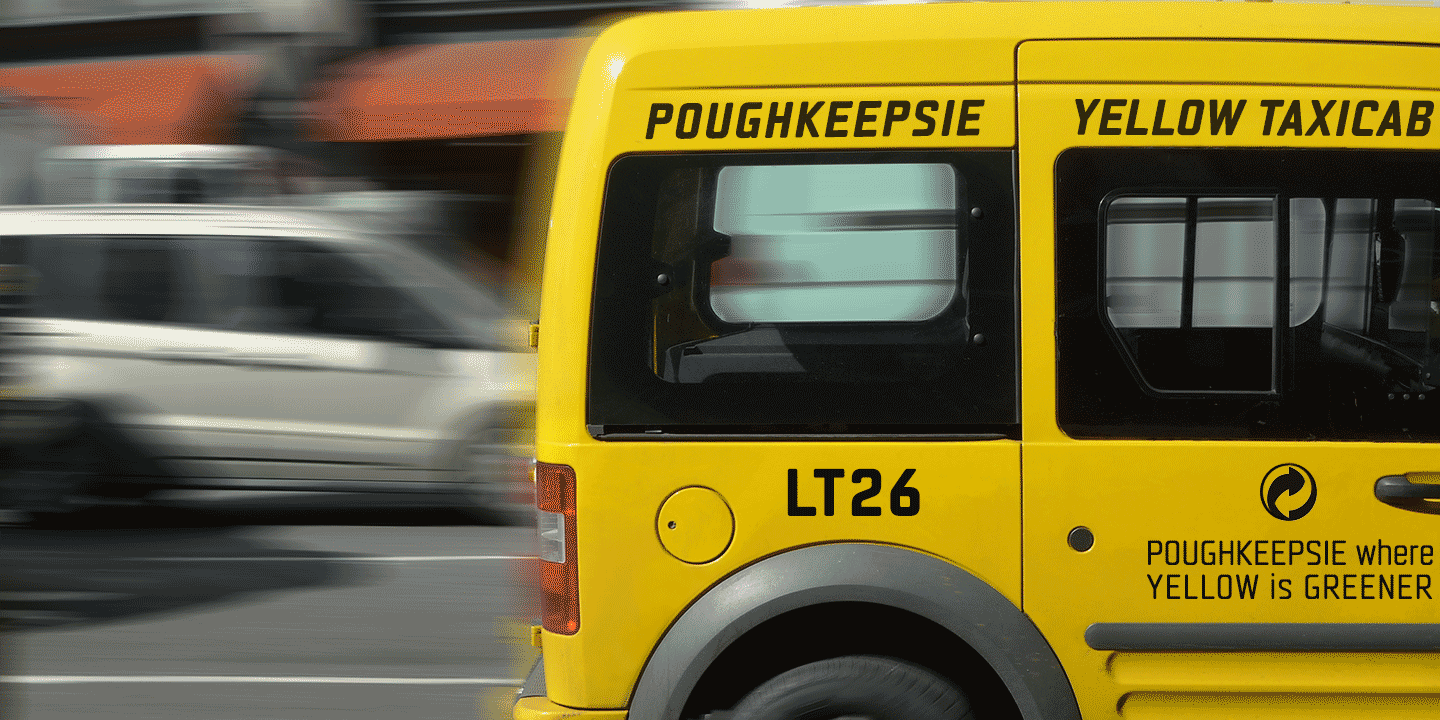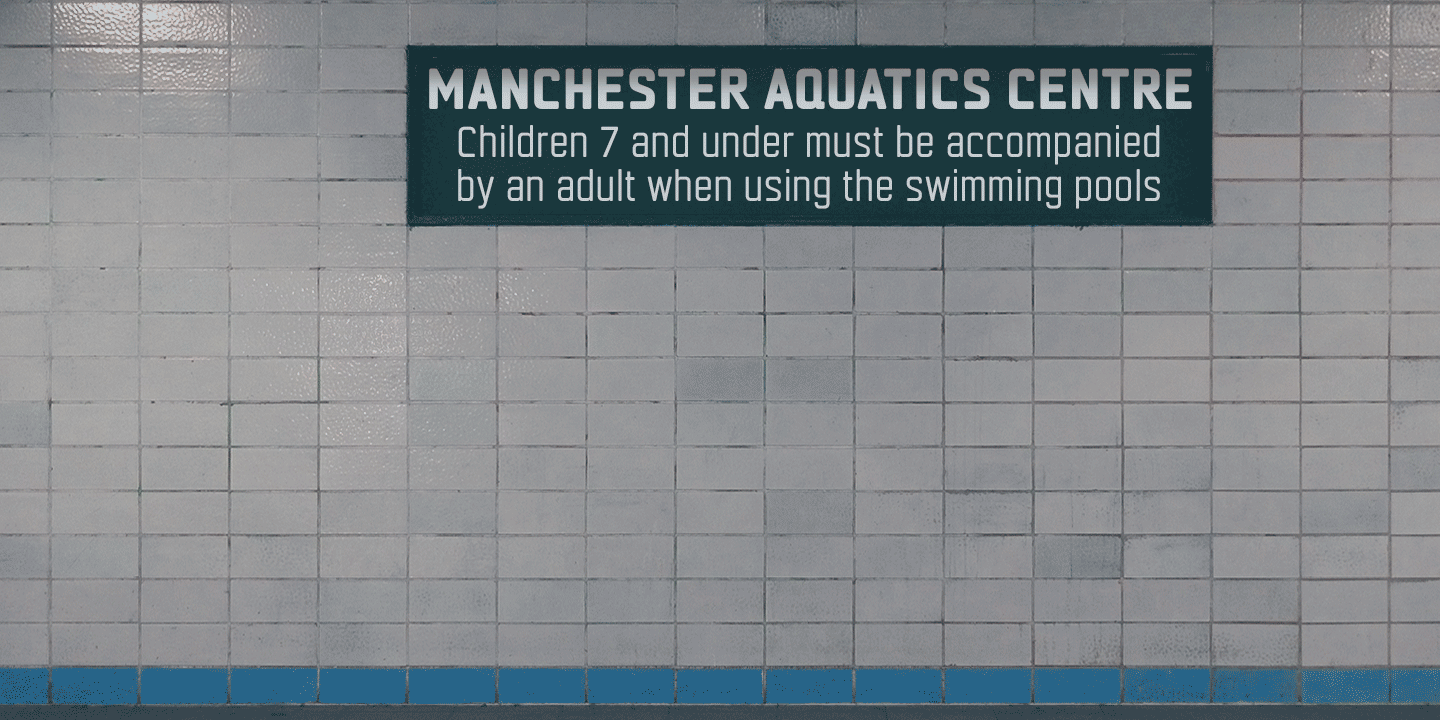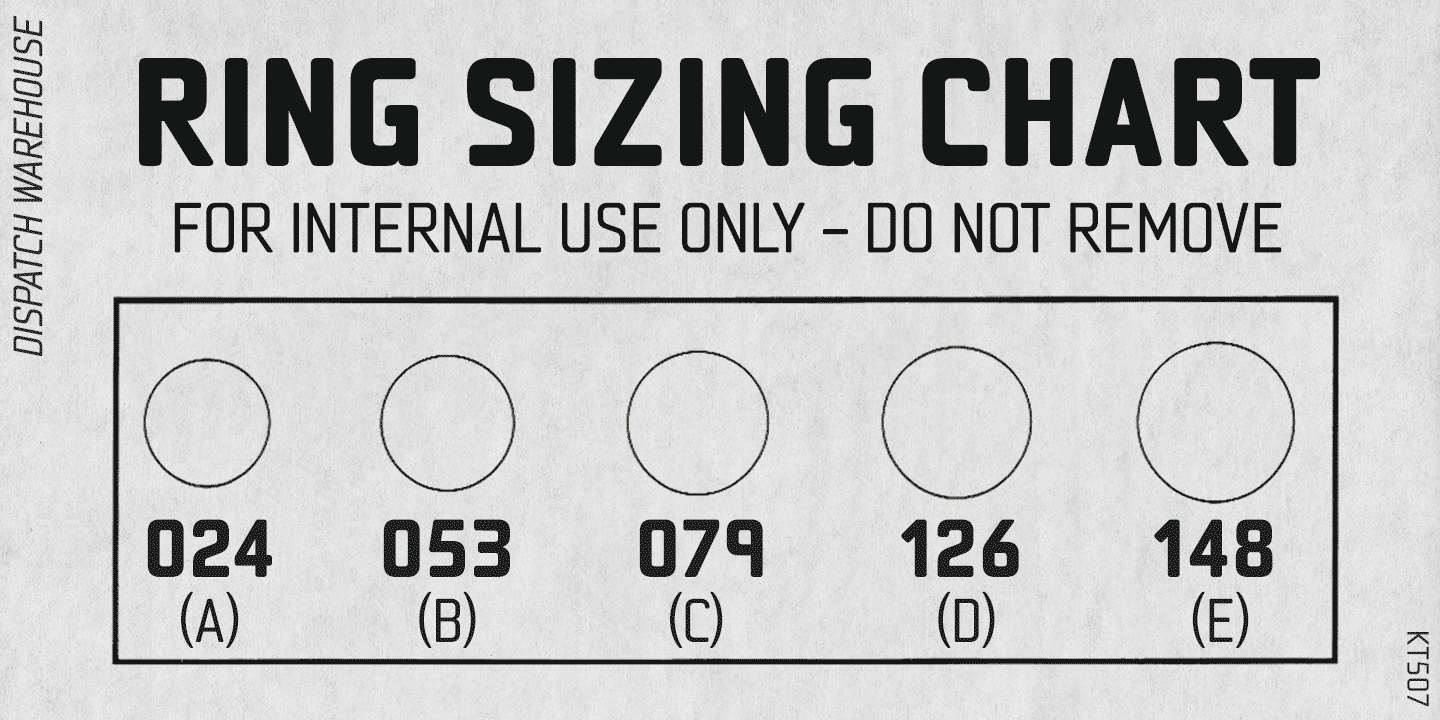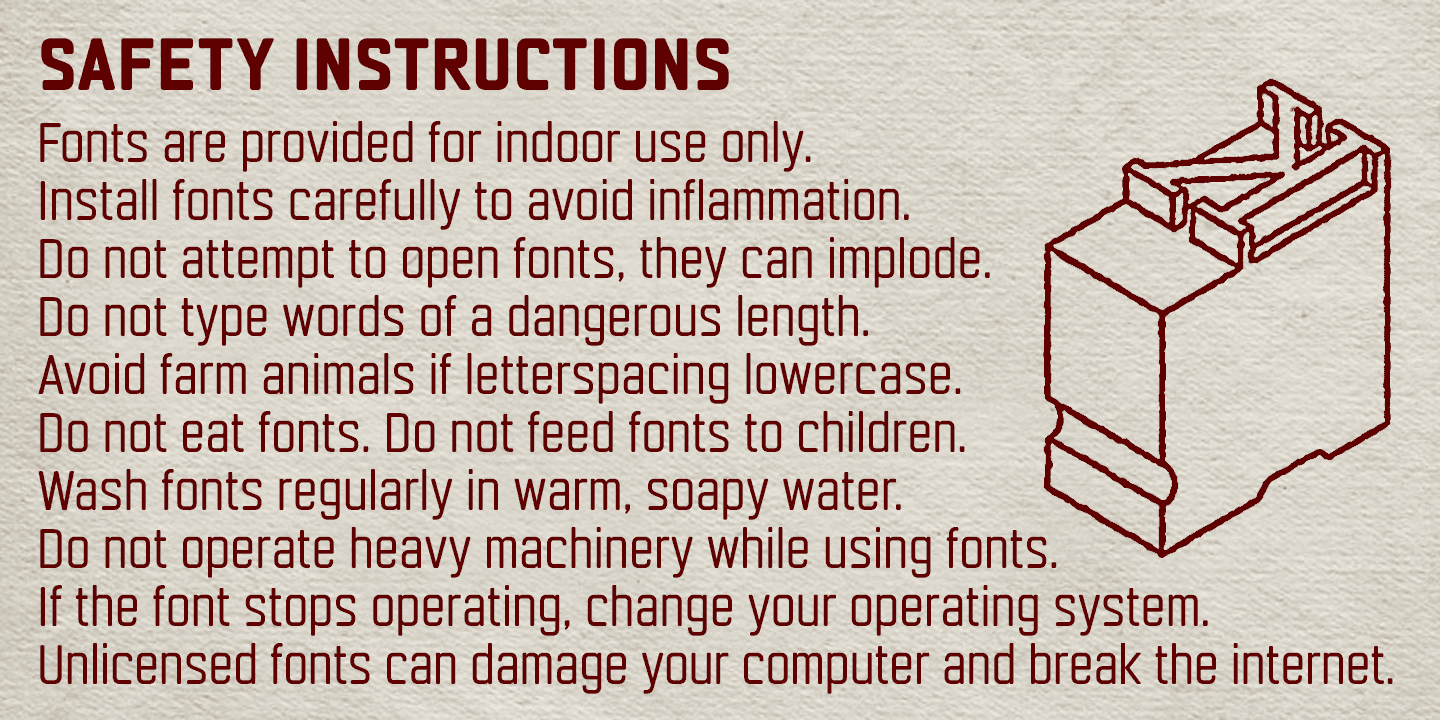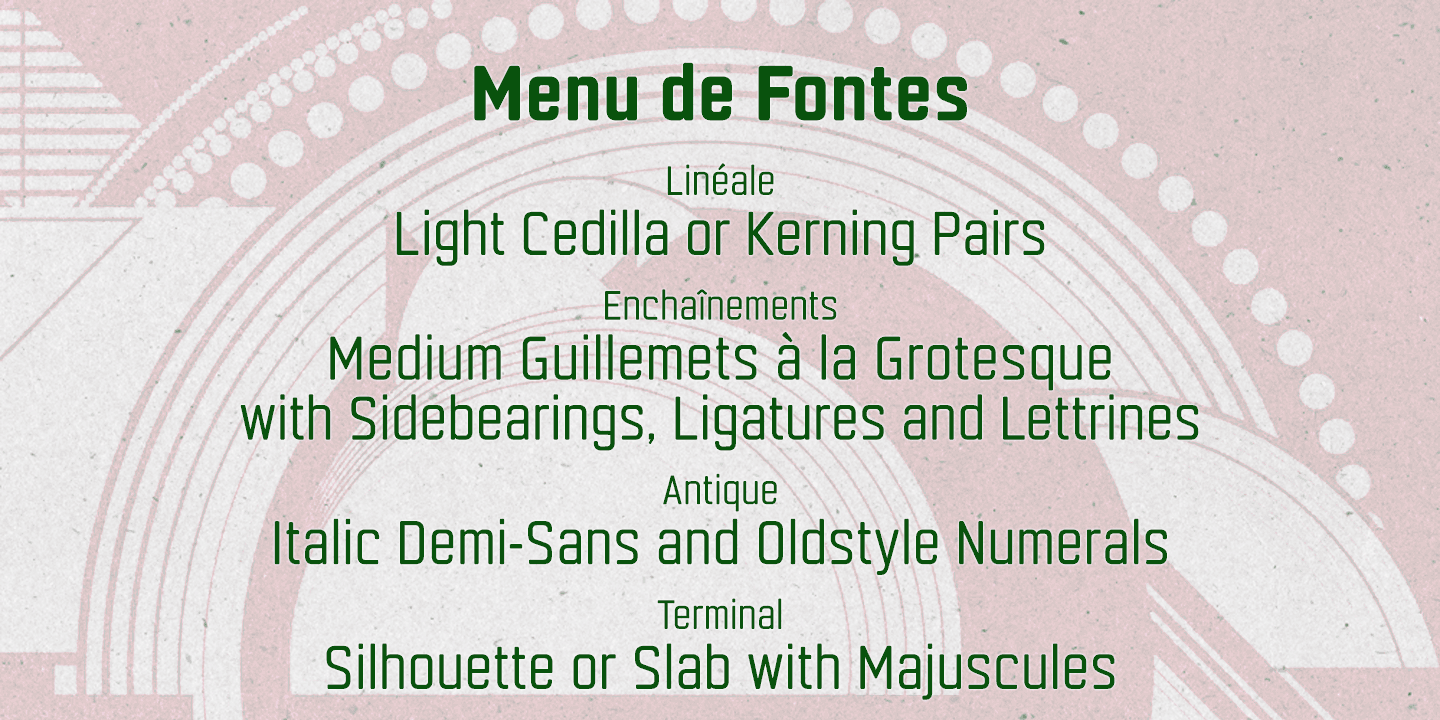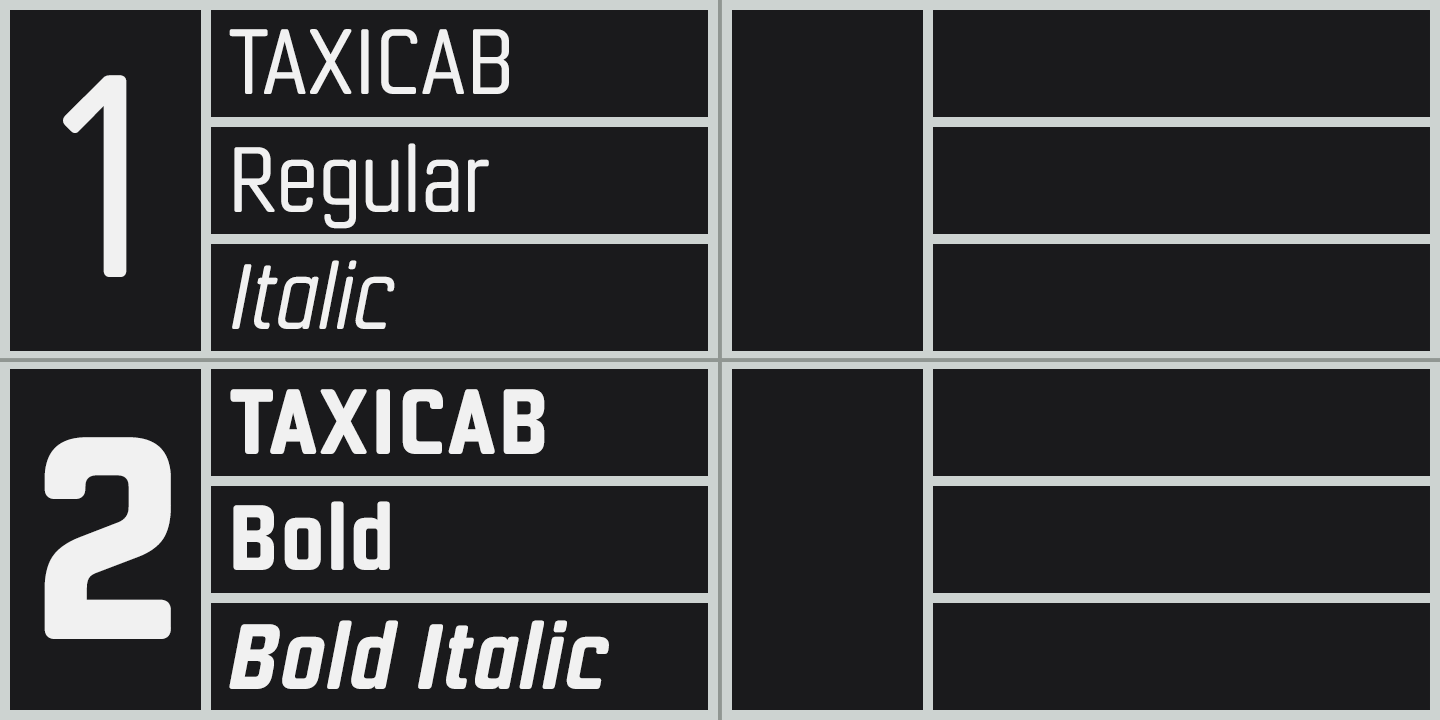
Taxicab
Font Family by K-Type
Taxicab is a full typeface inspired by the soft, rounded capitals and numerals used for medallion numbers on yellow taxis in New York and the pressed metal license plate lettering used on vehicles around the world.
Taxicab includes a proper lowercase and has a full complement of Latin Extended-A characters. The fonts are optically spaced, and kerned where necessary, making them extremely useful and satisfying for both text and display purposes. The family transcends its automotive origins and can be used wherever a modern, efficient, yet friendly quality is required.